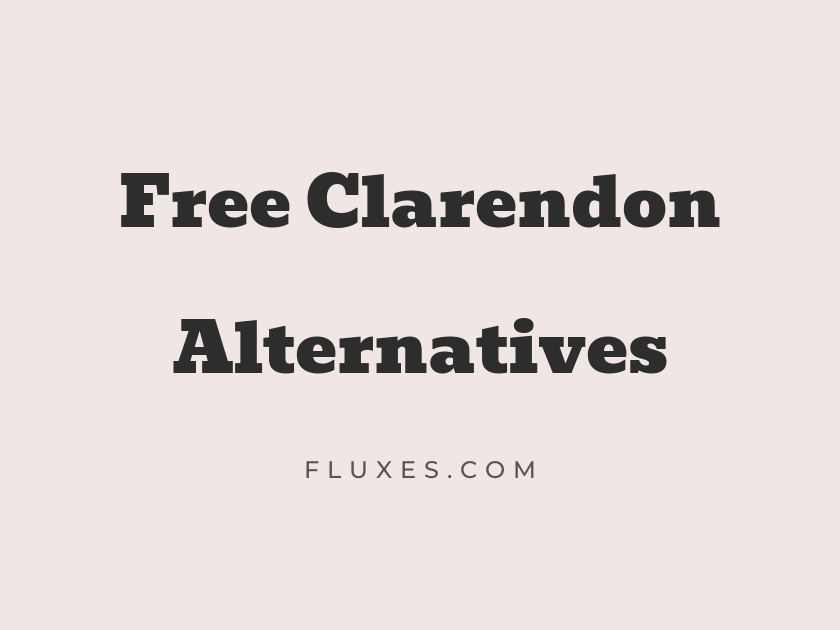
13 Best Free Fonts Alternatives to Clarendon
Clarendon has been a workhorse of American typography since the 1840s, prized for its bracketed slab serifs, sturdy proportions, and a presence that reads as both trustworthy and slightly nostalgic. Designers reach for it on everything from Wild West wanted posters to modern branding and editorial headlines, but the original is a paid release and licensing it for a full project can get expensive fast. Fortunately, the slab serif category on Google Fonts has matured considerably, and several free families now capture that same blend of structure and warmth, making them worth considering as alternatives to Clarendon for logos, signage, packaging, and web headlines.
Wanted: bold typography for your next brand
Bevan is the most direct Clarendon reference on this list, built with the same rounded, bracketed slab serifs and generous weight that made the original famous on old West posters. It carries a frontier, hand-lettered charm that suits craft packaging, whiskey labels, and rustic branding without any extra styling effort. Because it only comes in one heavy weight, it works best reserved for headlines and short bursts of display type rather than body copy.
Precision engineering meets classic slab serif charm
Originally commissioned by Mozilla for its Firefox OS interface, Zilla Slab brings an engineered, contemporary edge to the slab serif form. Its serifs are crisp rather than heavy, giving it a cleaner, more editorial feel than Clarendon while still nodding to the same structural family. It has a wide range of weights and even an italic set, so it adapts easily from long-form reading to bold display headlines.
Modern headlines built on classic slab structure
Roboto Slab takes the geometric discipline of Roboto and dresses it in slab serifs, resulting in a font that feels current and slightly technical. It lacks some of Clarendon’s Victorian warmth, but that restraint makes it a dependable choice for interfaces, product pages, and tech-adjacent branding where a slab serif adds a touch of authority without looking old-fashioned. Pair it with Roboto for body text and you get a coherent, ready-made system.
Rokkitt
Sturdy letters for confident signage and headlines
Rokkitt
Rokkitt has a friendlier, slightly rounder personality than most slab serifs, with generous curves that keep it from feeling severe even at heavy weights. It reads well on posters and packaging where you want something bold but approachable rather than stern or institutional. The bold weight in particular has a stamped, almost rubber-stamp quality that suits vintage-inspired branding.
Reliable text and headlines for editorial design
Bitter was built specifically for on-screen reading, and it shows in the way its serifs stay legible and unfussy at small sizes. It is less a Clarendon lookalike than a practical workhorse for articles, blogs, and reports that still want a slab serif’s grounded feel. Consider it when the priority is comfortable long-form reading rather than dramatic display impact.
Bold, geometric slabs for confident brand headlines
Arvo leans geometric, with even stroke widths and a slightly mechanical rhythm that gives it a stamped, industrial look. It suits branding that wants to feel solid and no-nonsense, such as construction, hardware, or outdoor gear. At smaller sizes its slabs can feel a touch heavy, so it performs best in headlines and short labels rather than dense paragraphs.
Aleo
A softer, humanist take on the classic slab
Aleo
Aleo shares Bitter’s DNA but adds a touch more warmth and humanist flow to its curves, making it feel friendlier on the page. It works nicely as a body companion to a bolder display slab, keeping long passages from feeling too rigid. Its italic is genuinely elegant rather than a simple slant, which is worth noting since many slab serifs skip that detail.
Kameron
Confident slab serifs with a literary feel
Kameron
Kameron has a slightly bookish quality, with serifs that feel a little more traditional and less mechanical than some of its peers. It fits well in editorial contexts, book covers, and branding for publishers or educational institutions that want gravitas without veering into stiff formality. The bold weight has enough presence to anchor a headline against a busy photograph.
Podkova
Warm, rounded slabs with old-world character
Podkova
Podkova brings noticeably rounded terminals and a warmer, more organic feel than the typical rigid slab serif. It suits food and beverage branding, farmers market signage, and craft goods where Clarendon’s stiffness would feel out of place. Its Cyrillic support also makes it a practical pick for projects with Eastern European audiences.
Slabo 27px
Built for legibility at small screen sizes
Slabo 27px
Slabo was designed pixel by pixel for screen legibility, and it remains one of the most dependable choices when a slab serif needs to hold up at small sizes on the web. It is not particularly expressive, but that restraint is exactly the point for interface text, captions, and metadata where clarity matters more than character. Note that it comes in fixed size-specific versions, so check that the size you need is available.
All of these families are free to download and use commercially through Google Fonts, which makes it easy to test a few side by side before settling on your final choice.
Clarendon’s legacy lives on in each of these families, whether through direct homage, shared structural bones, or simply a similar spirit of bold, dependable letterforms. With this range of free alternatives, there is no need to pay for a license when a Google Fonts option can likely deliver the same slab serif confidence for your next project.